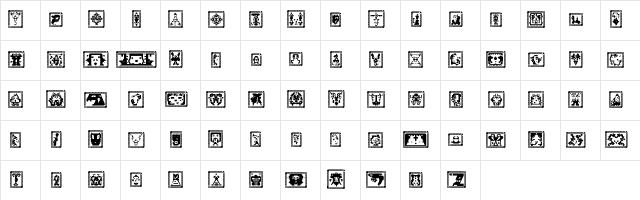
Complete TESTAMENT B / Formaldhyde 1 0 Regular glyph index. Displaying only characters natively supported by TESTAMENT B / Formaldhyde 1 0 Regular font.
TESTAMENT B / Formaldhyde 1 0 is a composed and adaptable typeface that performs quietly and consistently across a wide range of design contexts.